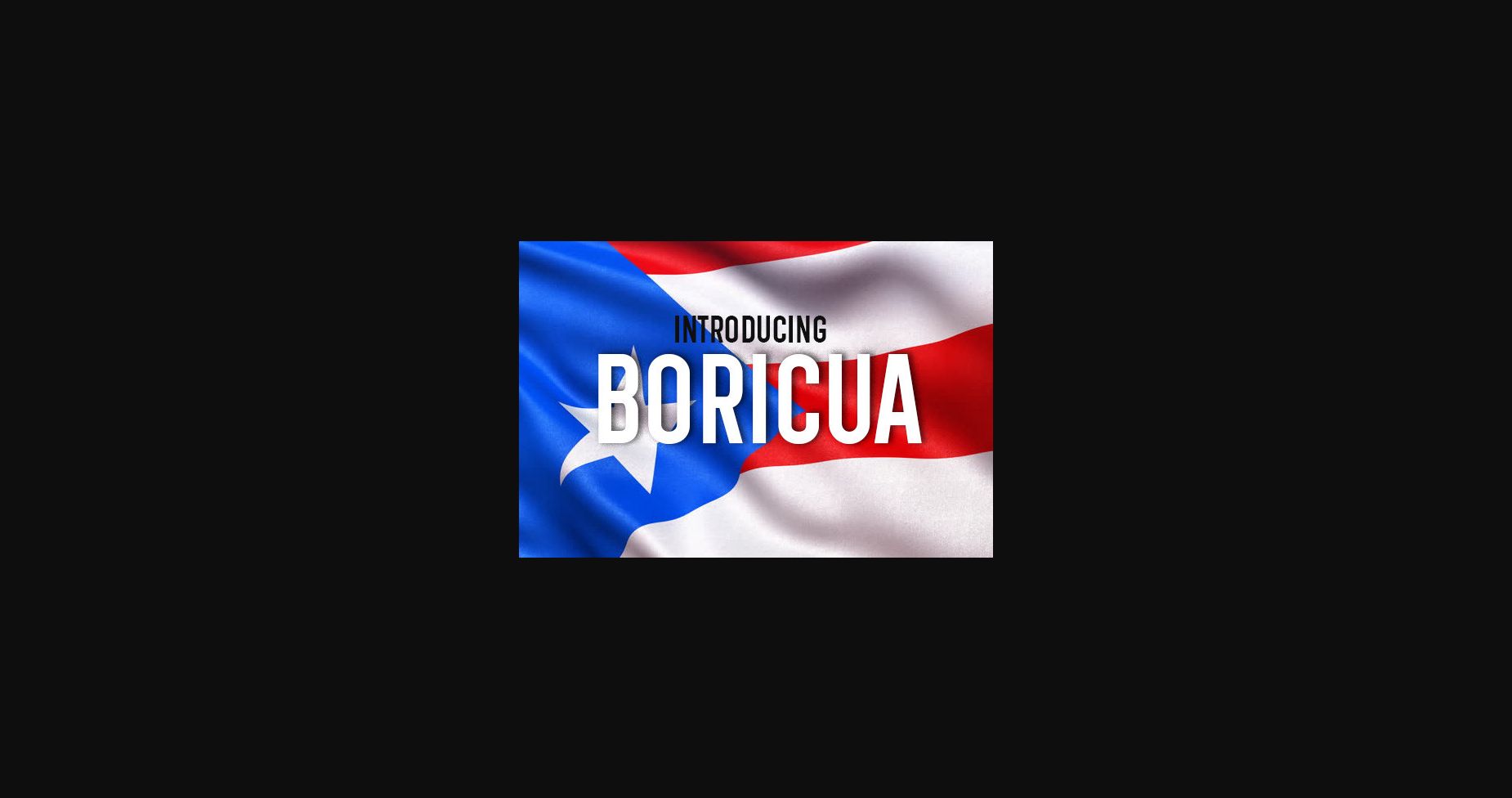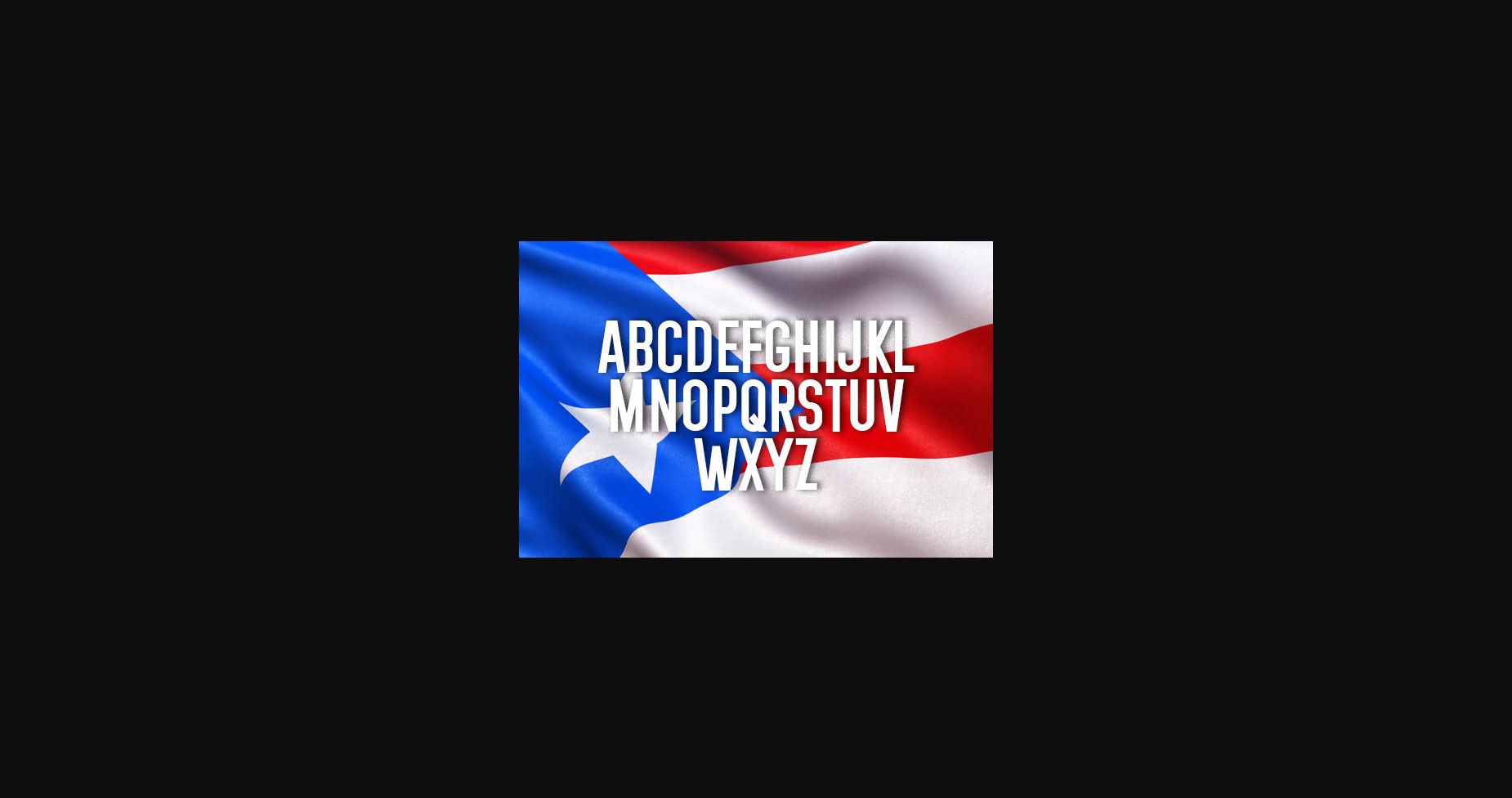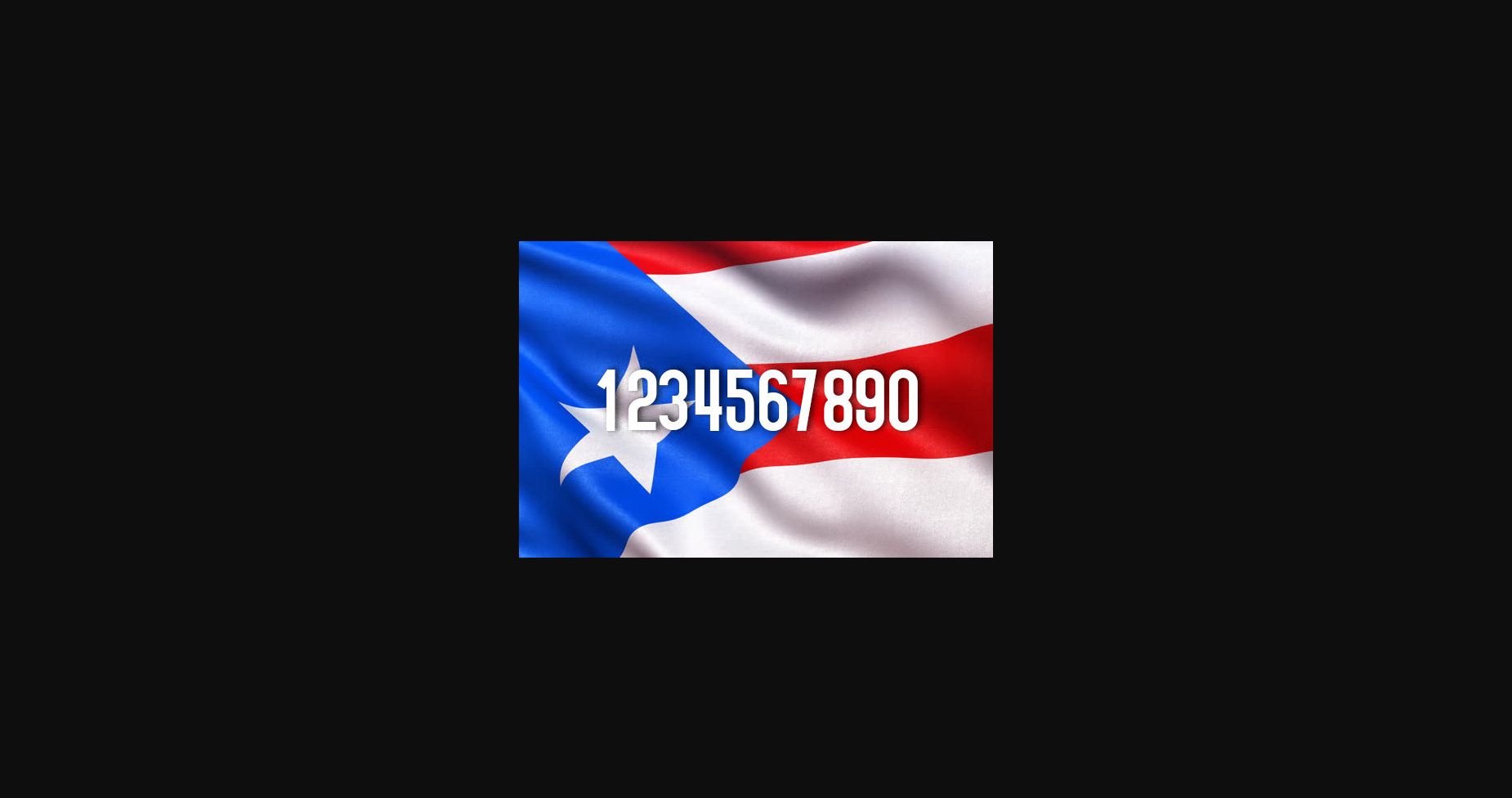
About Boricua Font
Boricua is a simple and sharp-looking sans serif font that will truly inspire your works. Use this font for your designs and explore its endless possibilities.